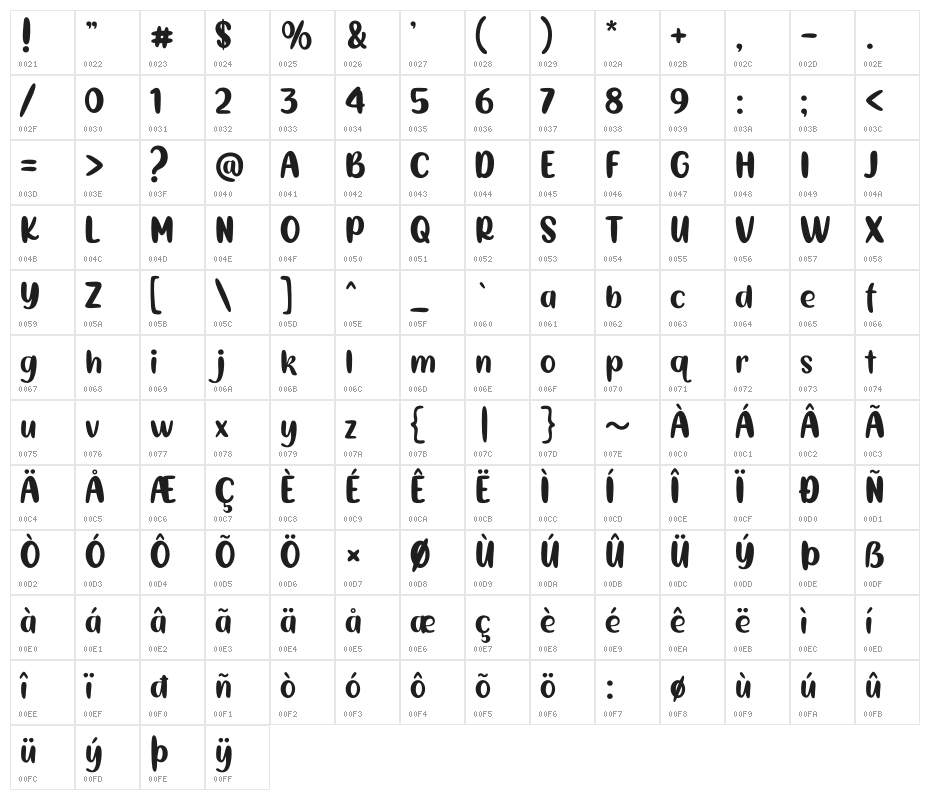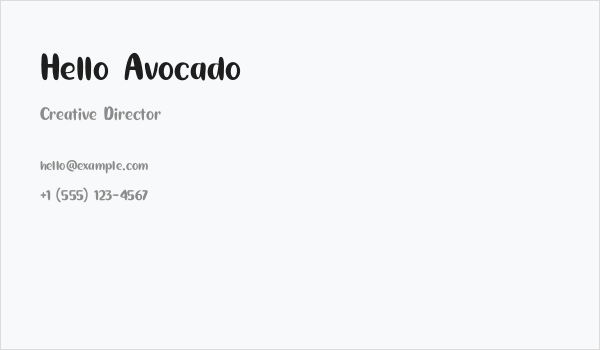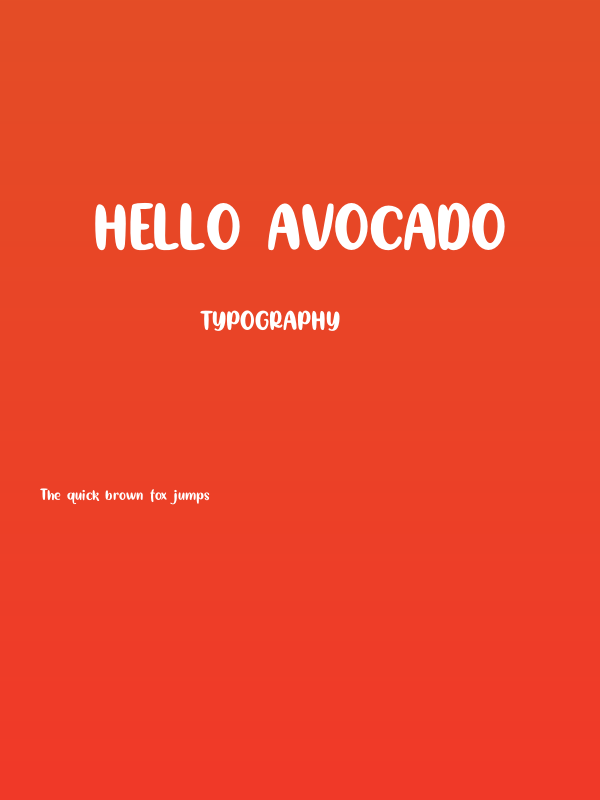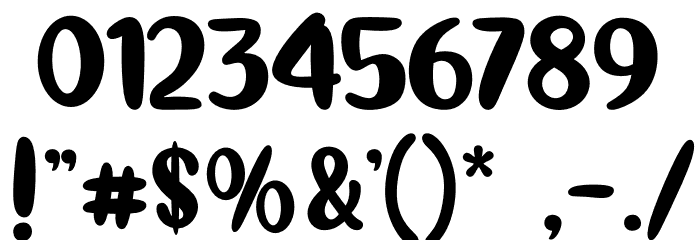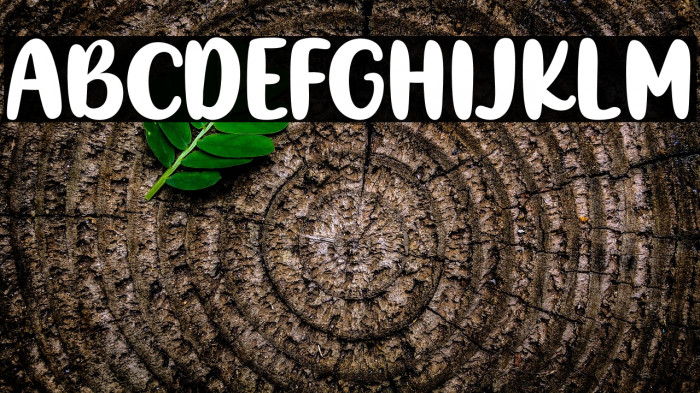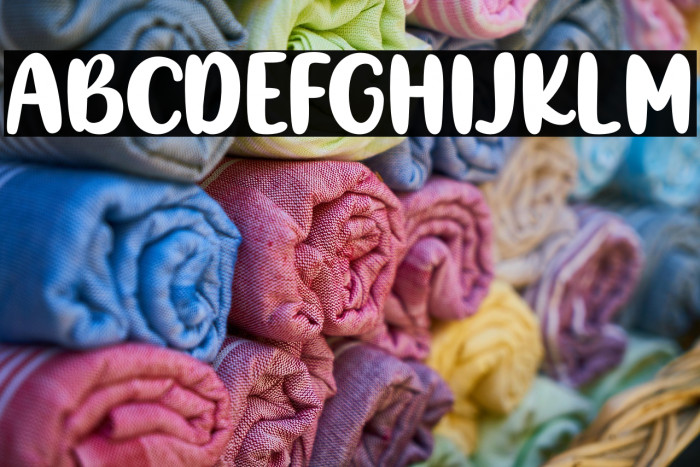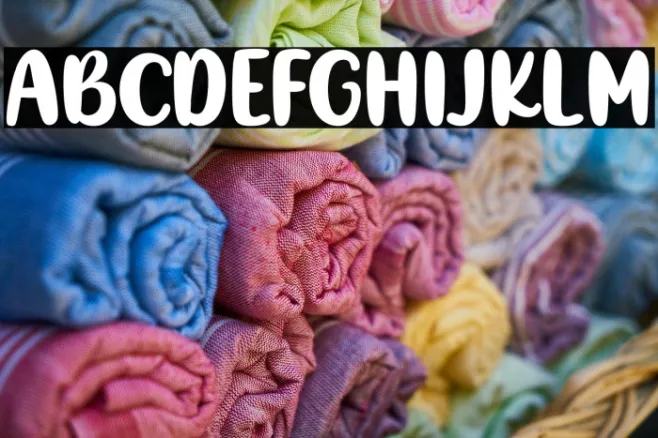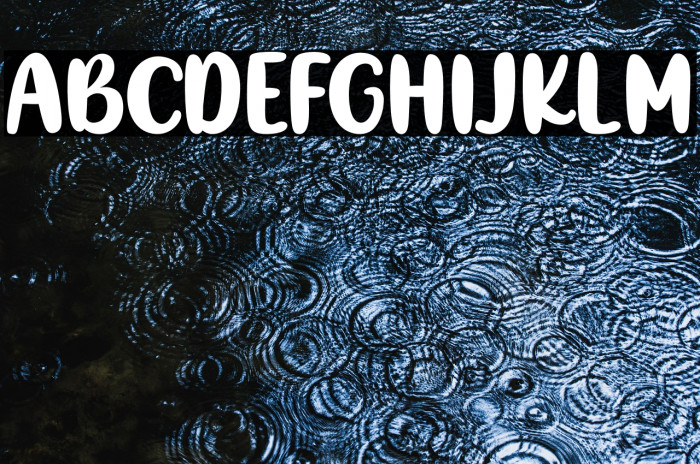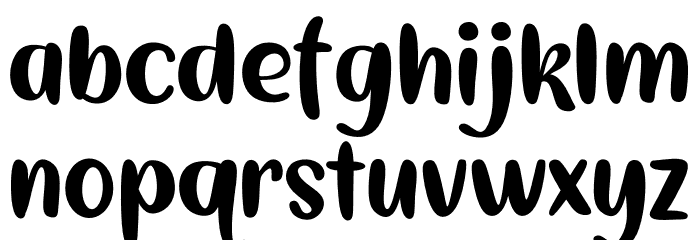
Hello Avocado Font
Hello Avocado Description
This playful and bold font features rounded, thick strokes that give it a friendly and approachable appearance. The characters are slightly condensed, adding to the compact and cohesive look. The uppercase and lowercase letters maintain a consistent style, with smooth curves and a uniform weight that enhances readability. The numbers and special characters are designed to match the overall aesthetic, making this font versatile for various uses. Its boldness and unique style make it stand out, perfect for creative and informal projects.